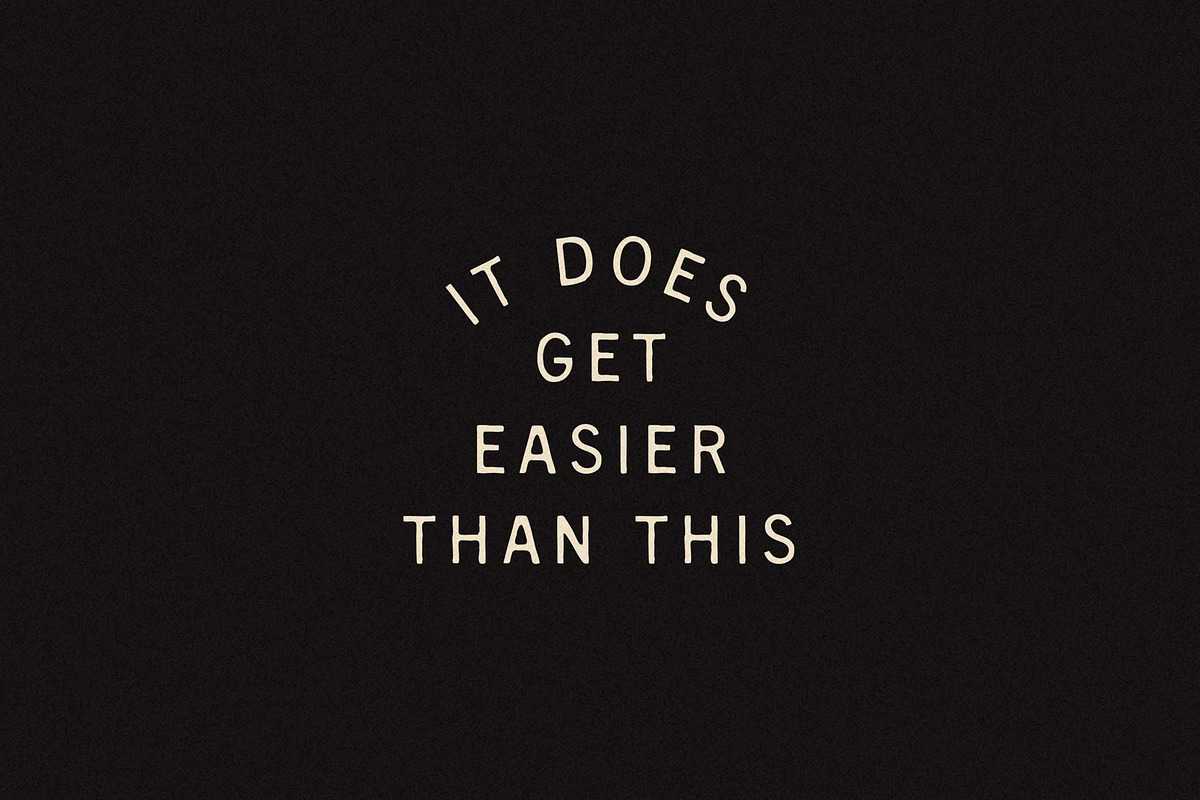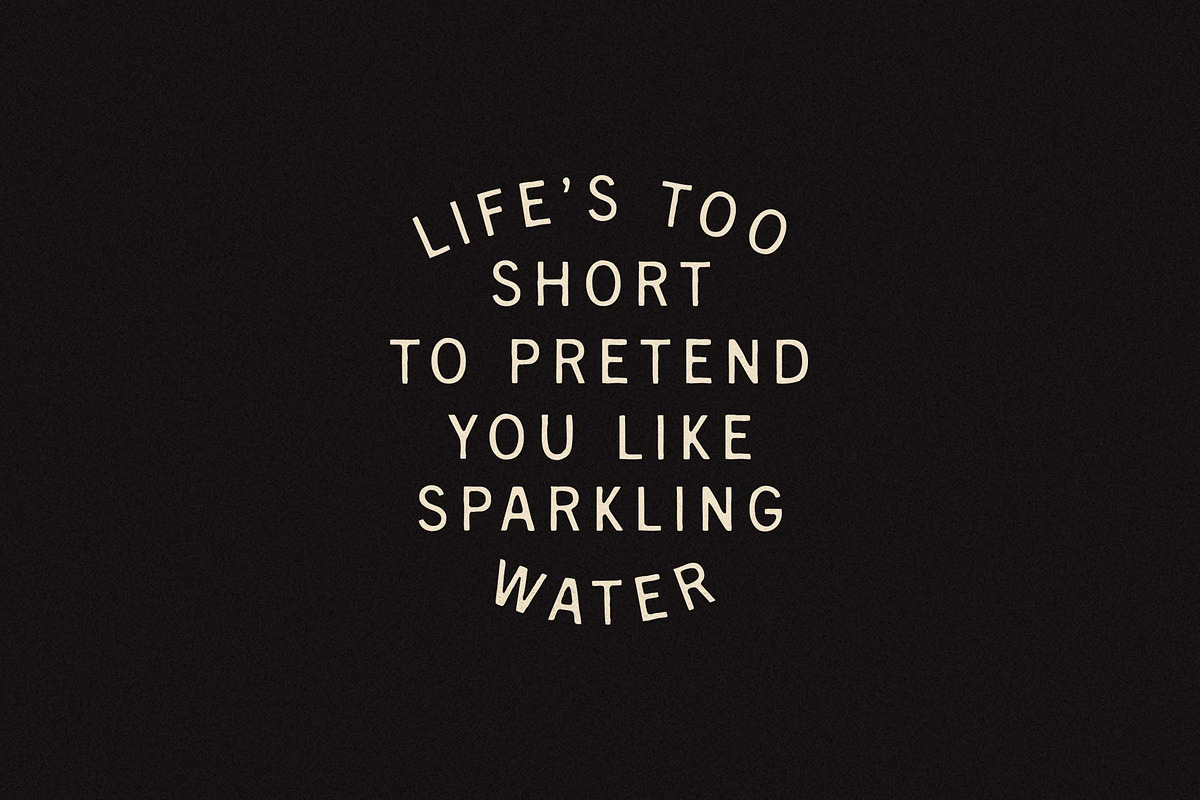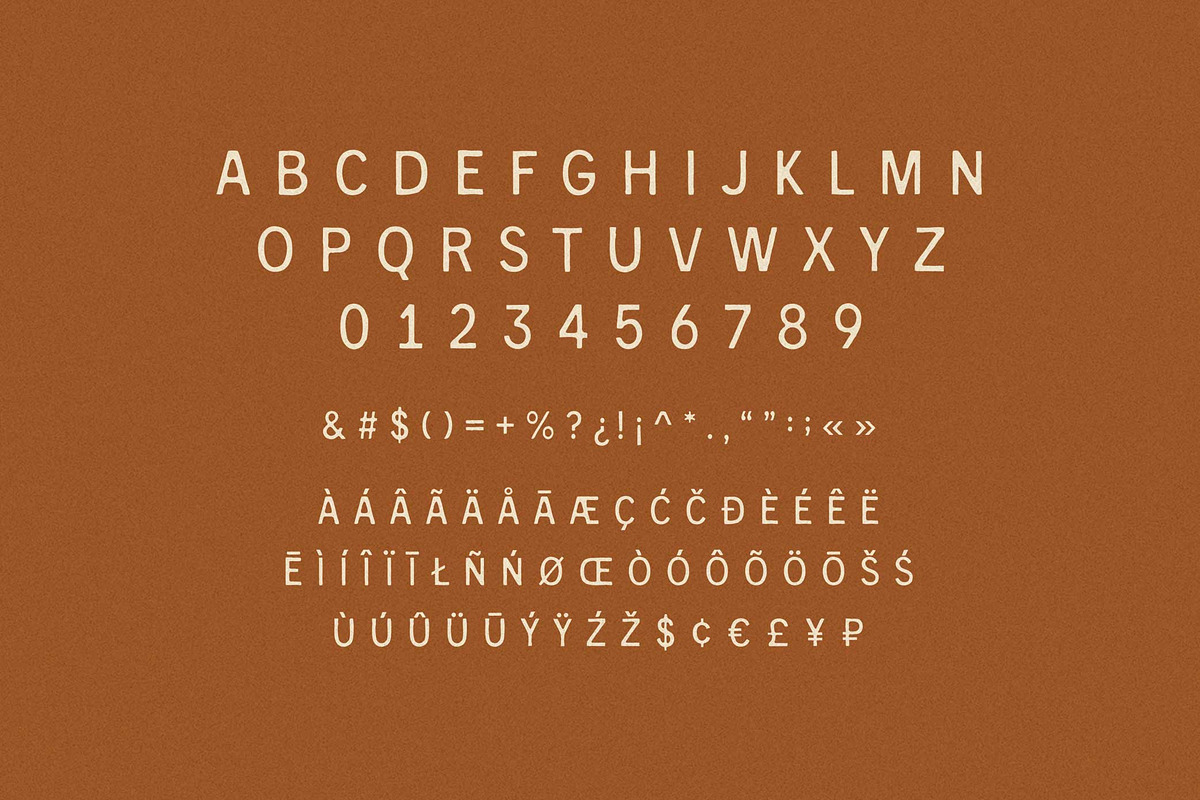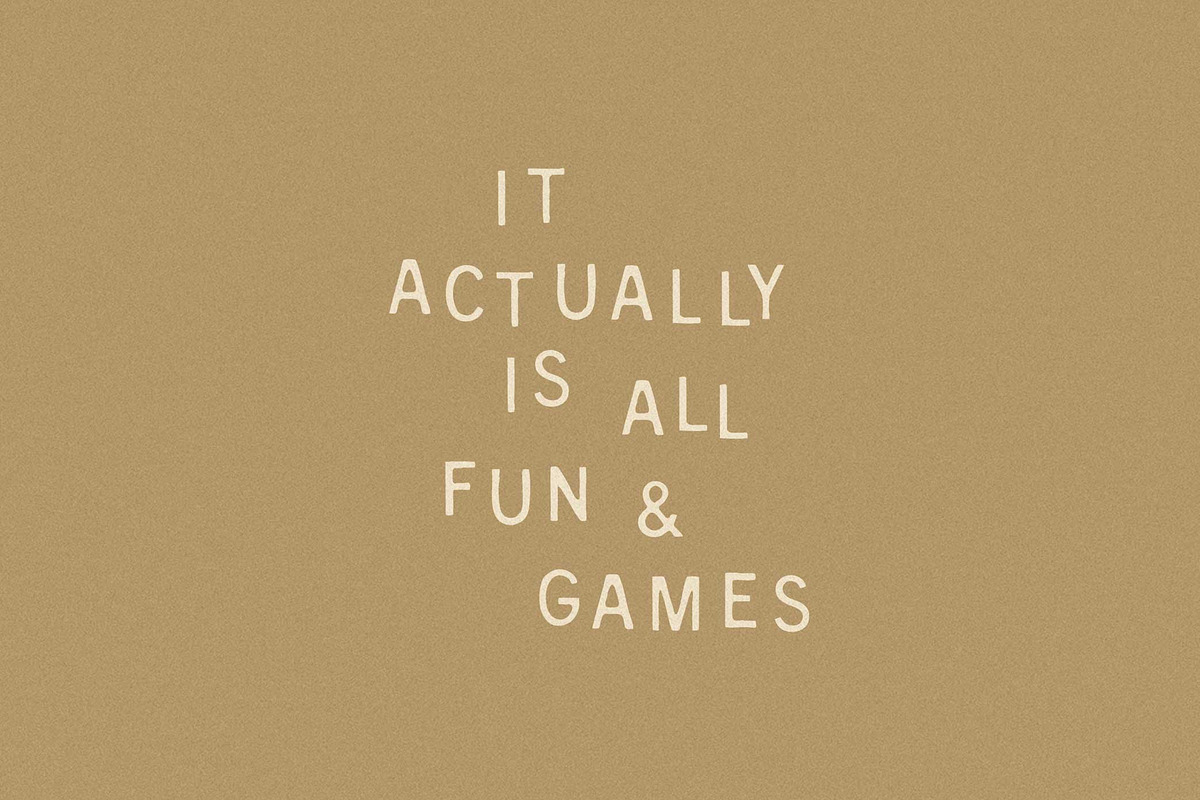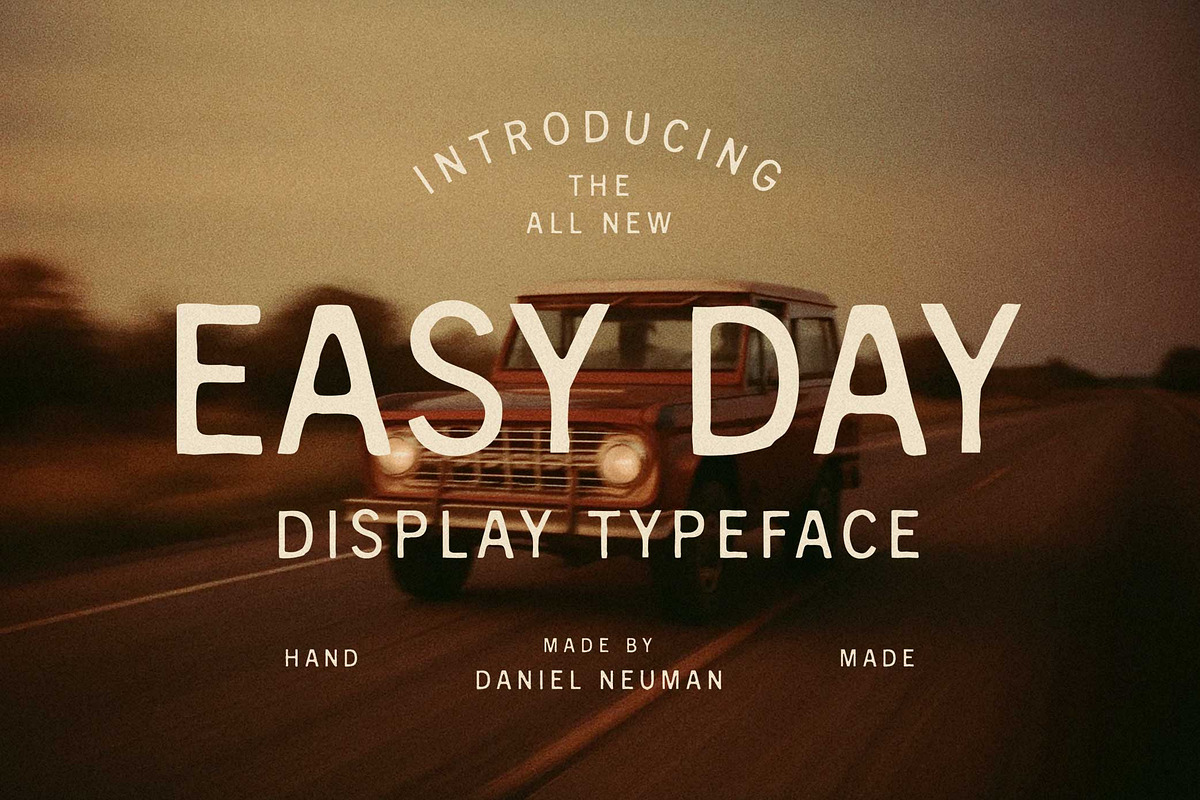
Easy Day | Relaxed Sans Serif
Meet Easy Day, a hand-drawn display typeface that doesn’t try too hard—because it doesn’t have to. With relaxed curves and a natural flow, Easy Day feels like a deep breath in a world of deadlines. It’s the font equivalent of an open window and nowhere to be. Laid-back but still sharp enough to make a statement, it’s built for projects that want a little charm without all the fuss. Perfect for packaging, headlines, social posts, and anywhere else you want to keep things casual but considered.